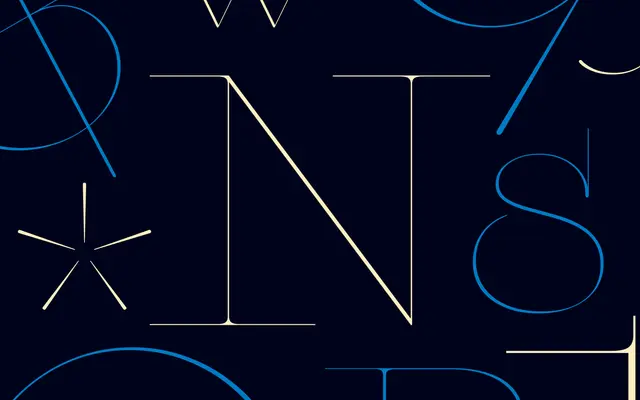
Neumond
Dalton Maag · Lukas Paltram, Samir Reis
A high-contrast geometric display by Lukas Paltram and Samir Reis, reducing serifs and line weights to the edge of legibility.
A geometric display by Lukas Paltram and Samir Reis that pushes serif and line weight to the edge of legibility. Gossamer thin strokes, spiky spurs, streamlined geometry and stylish alternates give it a sharp, precise voice, with a denser cut for moments that need more presence. Built for fashion editorial, beauty packaging, posters and titling where elegance and attitude matter more than text-size comfort.
Dalton Maag describe Neumond as a conceptual typeface that plays with the limits of legible type design, reducing serif and line weights to the absolute minimum to deliver a sharp, precise geometric display font.